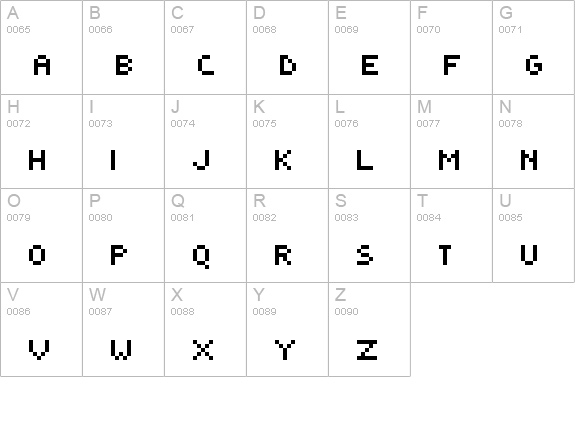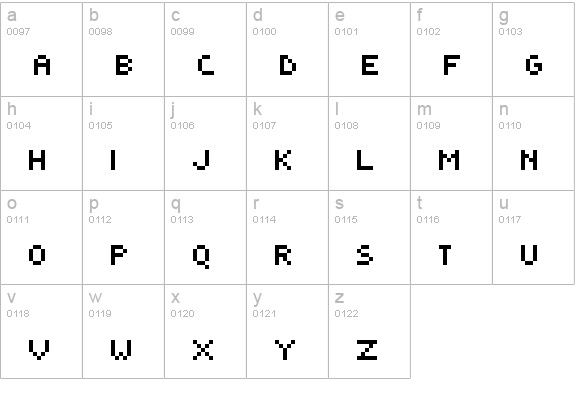
Genx KCond Cyr Font Details
Introducing Genx KCond Cyr font, a stylish and modern typeface that is perfect for a wide range of design projects. This unique font features sleek lines and a contemporary feel, making it ideal for branding, logos, posters, and more. With its condensed style and Cyrillic characters, Genx KCond Cyr font adds a touch of sophistication to any design. The best part? Genx KCond Cyr font is available for free download at FontsMarket.com. Simply visit the website and start using this versatile font in your projects today. Don't miss out on the opportunity to enhance your designs with the elegance and flair of Genx KCond Cyr font.